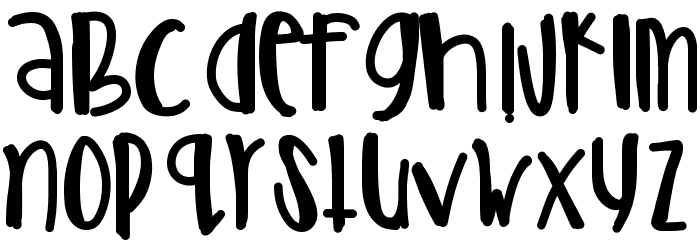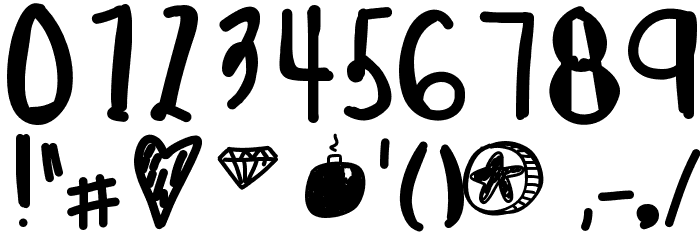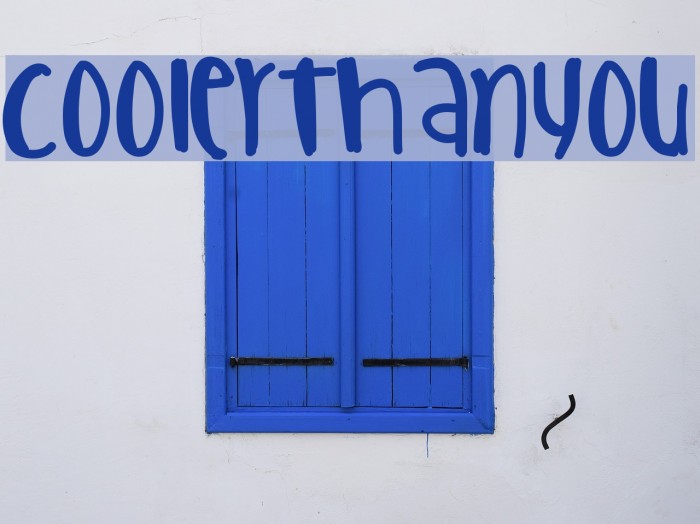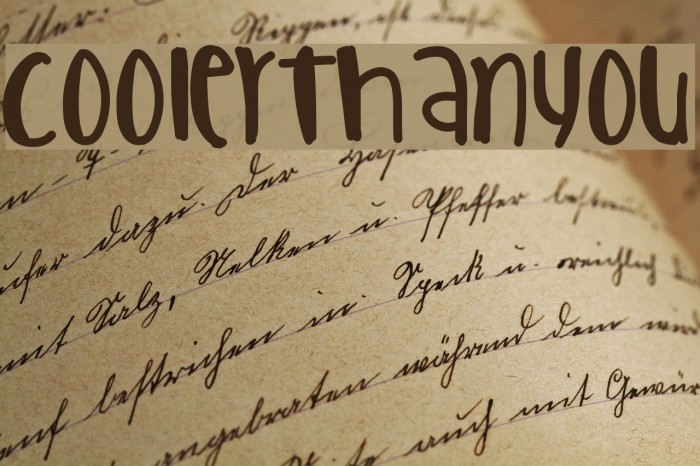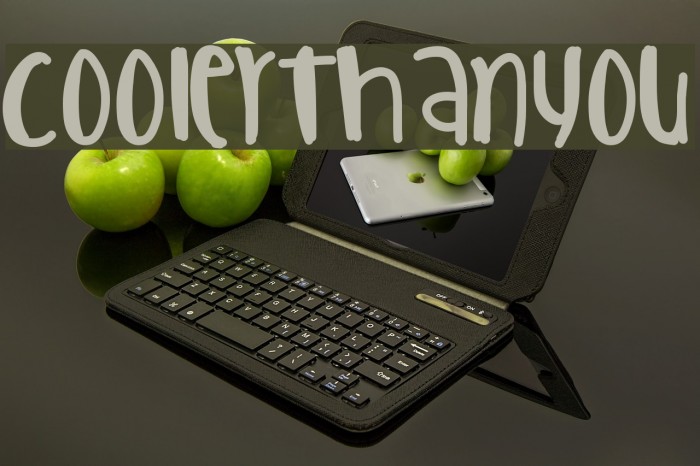
CoolerThanYou Font
This playful and bold font features a handwritten style with a casual and friendly appearance. The letters are characterized by their thick strokes and slightly uneven lines, giving it a dynamic and energetic feel. The uppercase and lowercase letters maintain a consistent style, with rounded edges and a slightly condensed form. The numbers and special characters follow the same playful design, making the font versatile for various creative projects. Its informal and approachable look makes it ideal for designs that require a personal touch.
A bold, playful handwritten font with thick strokes and a casual style.
- Proposed Projects: Perfect for greeting cards, children's books, playful branding, and social media graphics.
- Overall Style: Playful